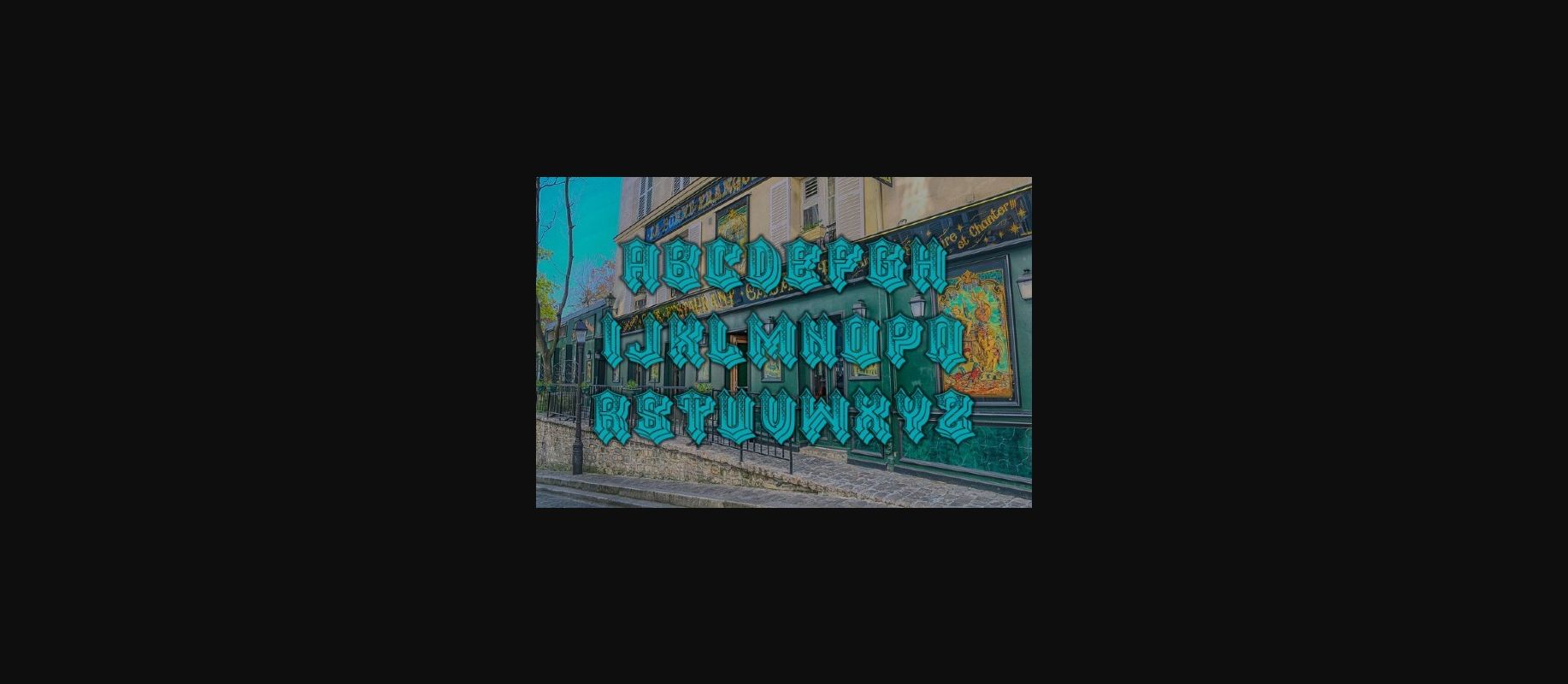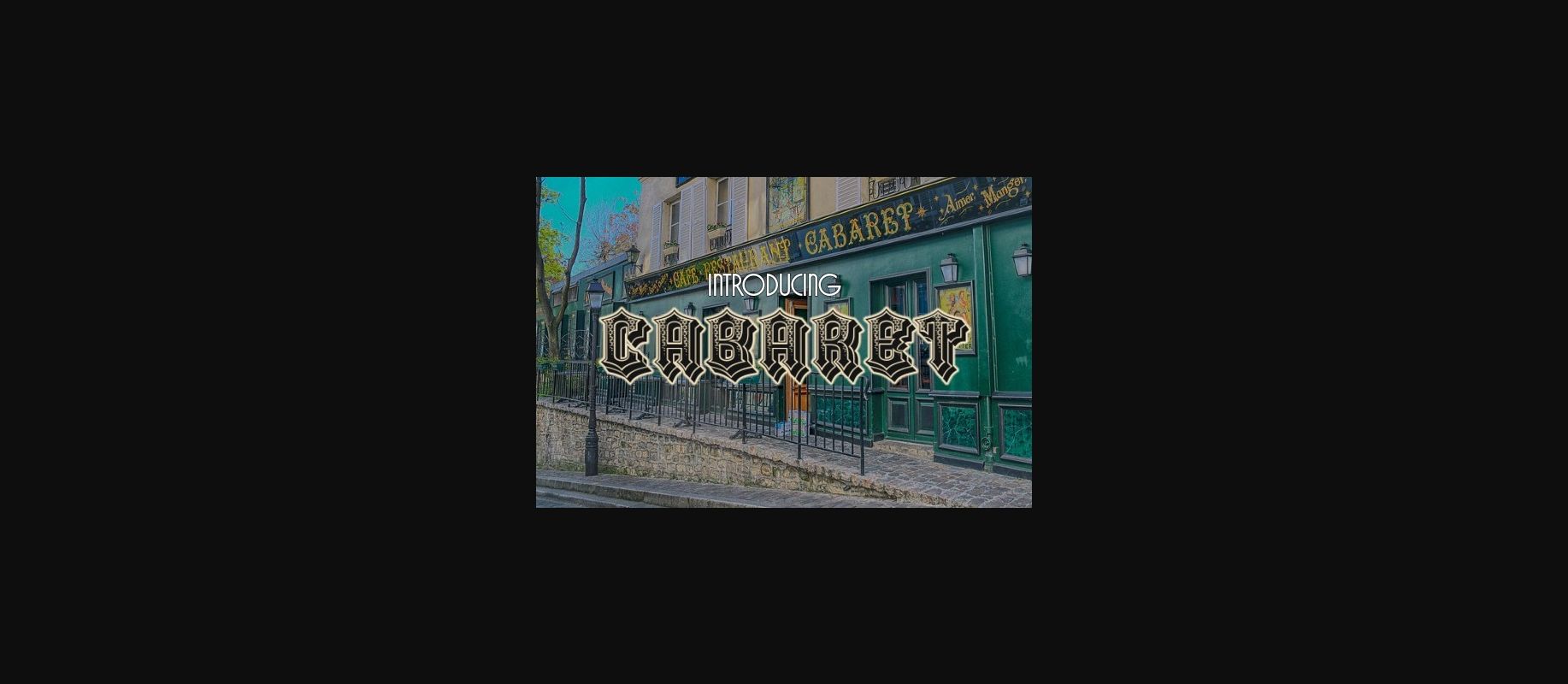
Cabaret Font
About Cabaret Font
Cabaret is a highly detailed decorative font that will look stunning on any poster, flyer, or print. Use this font for your designs and explore its endless possibilities.